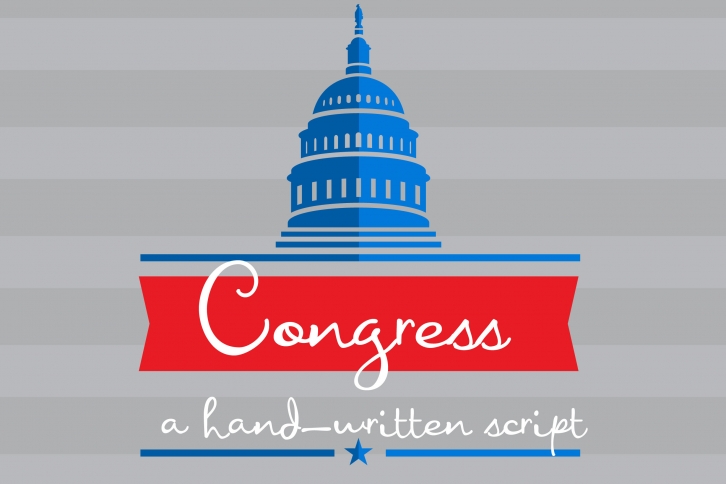
Congress is a round lettered and chic script font. Masterfully designed to become a true favorite, this font has the potential to bring each of your creative ideas to the highest level!